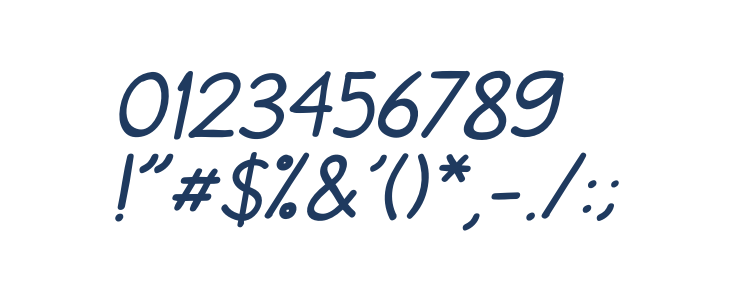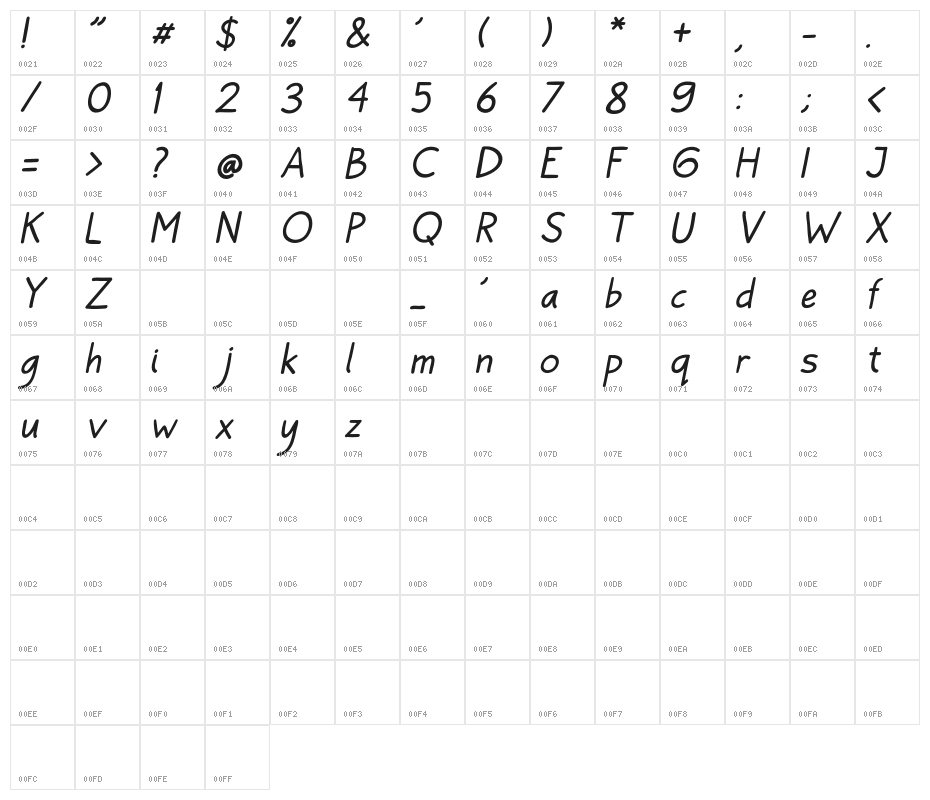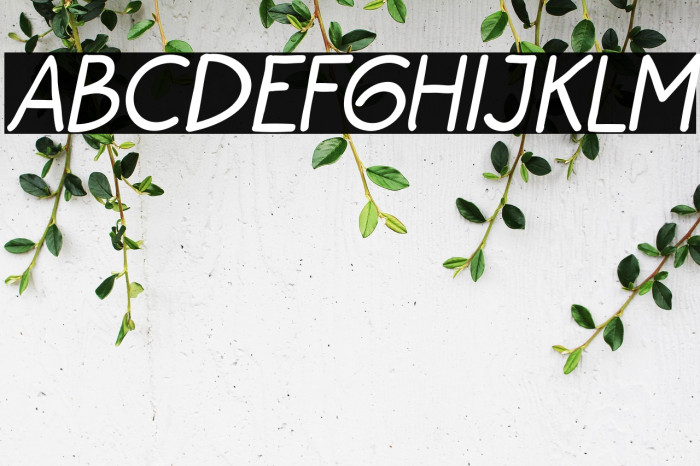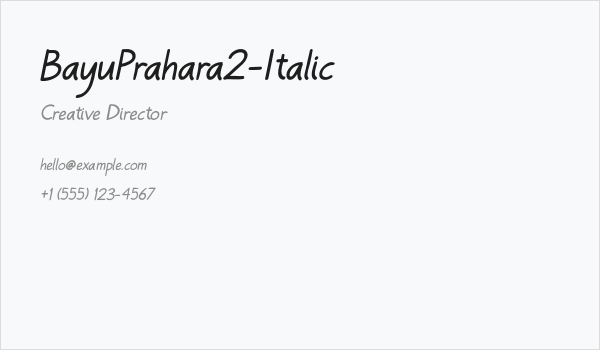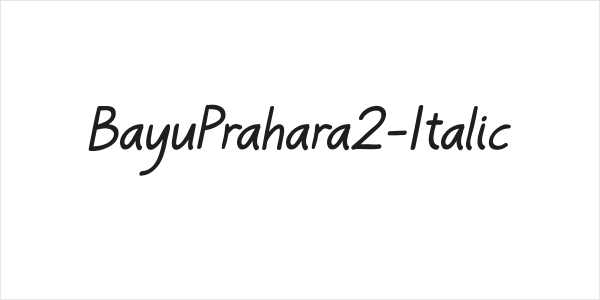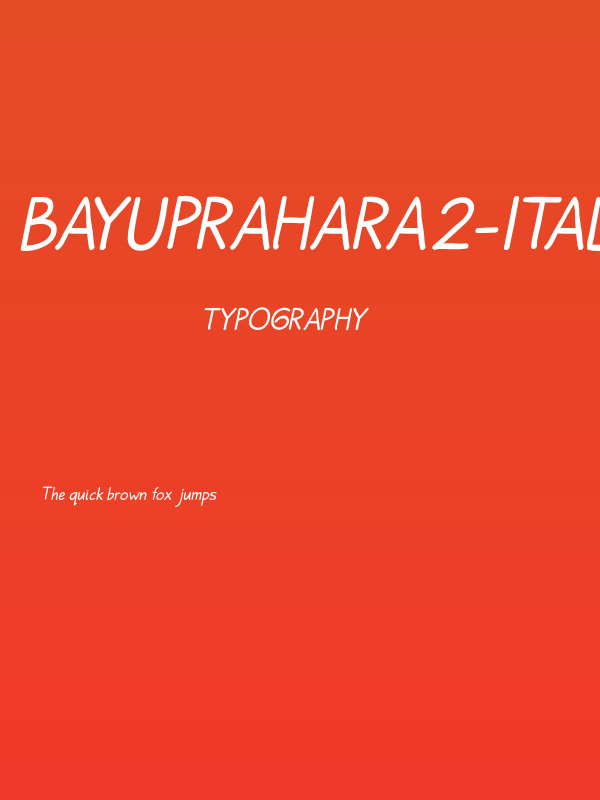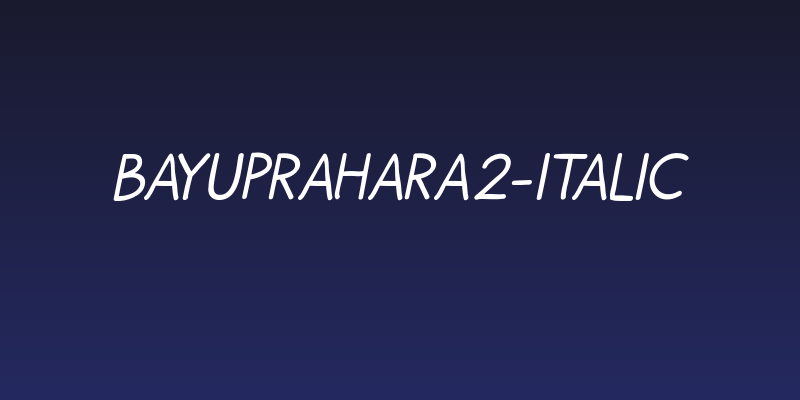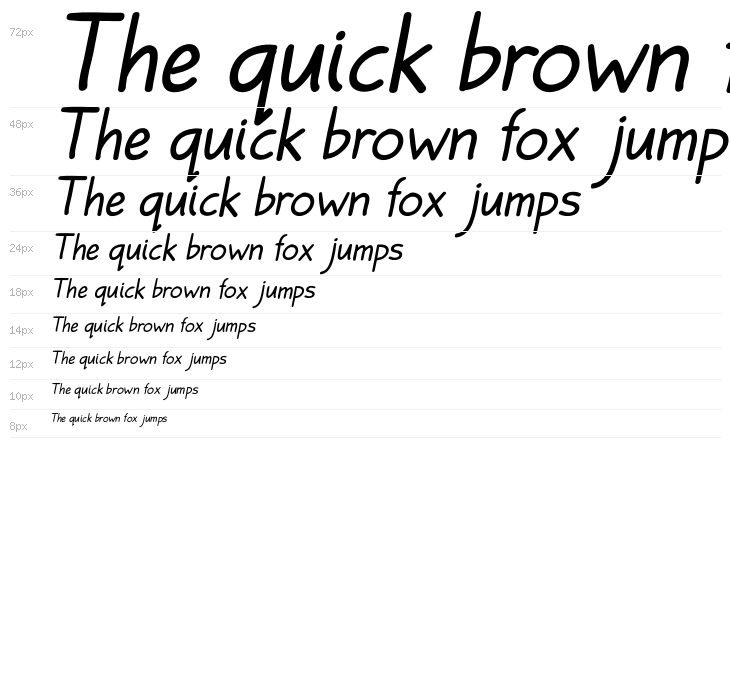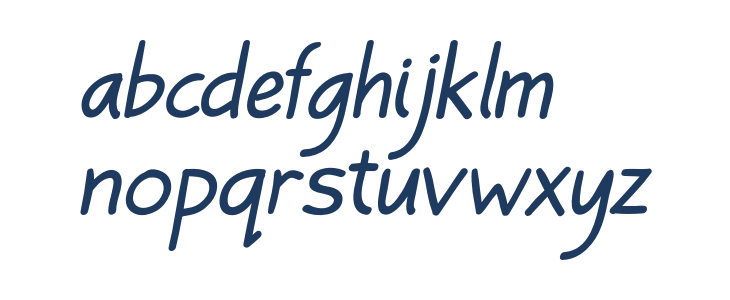
BayuPrahara2-Italic Font
BayuPrahara2-Italic Description
This font features a dynamic and fluid design, characterized by its italicized and handwritten style. The letters are slightly slanted, giving a sense of motion and elegance. The strokes are smooth and consistent, with a medium weight that ensures readability while maintaining a casual and friendly appearance. The uppercase letters are bold and prominent, while the lowercase letters are more rounded and approachable. The numerals are clear and distinct, matching the overall style of the alphabet. Special characters are well-integrated, maintaining the cohesive look of the font.